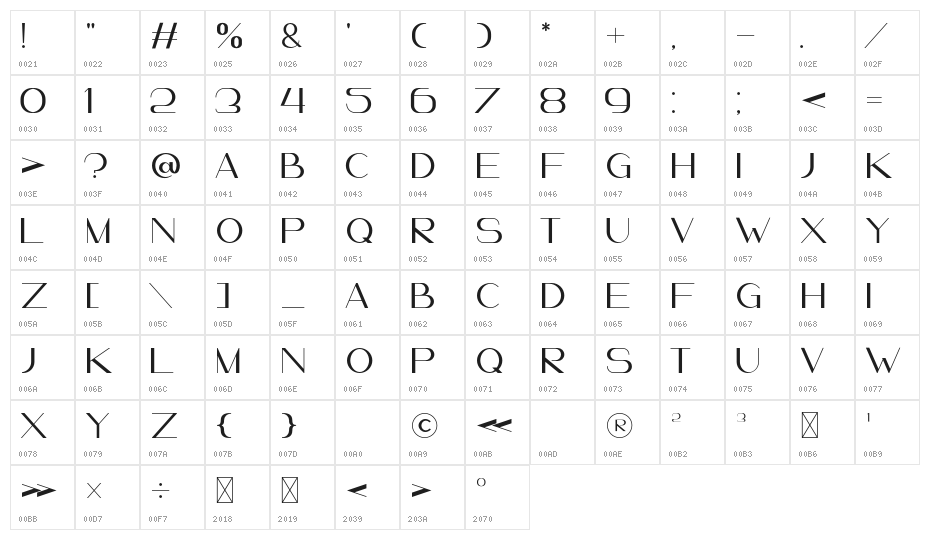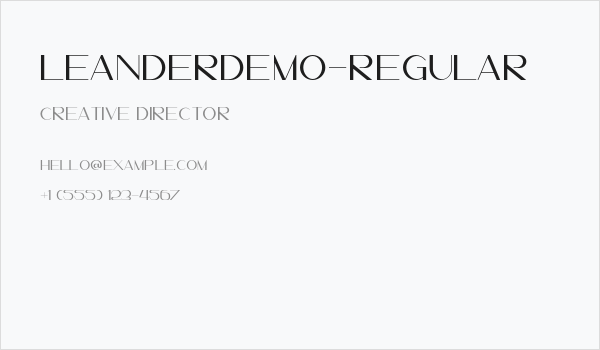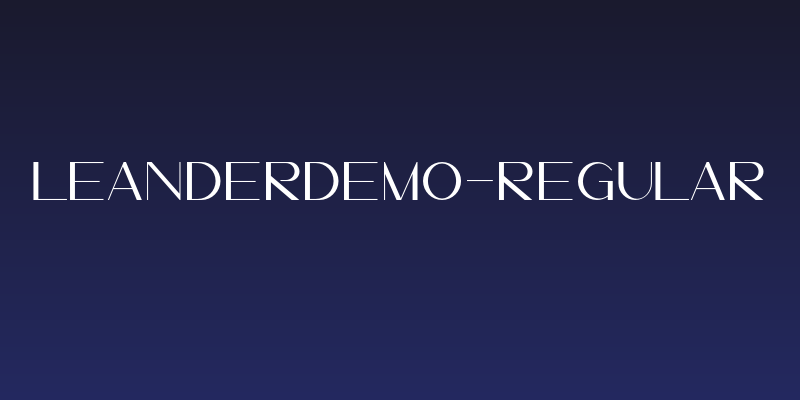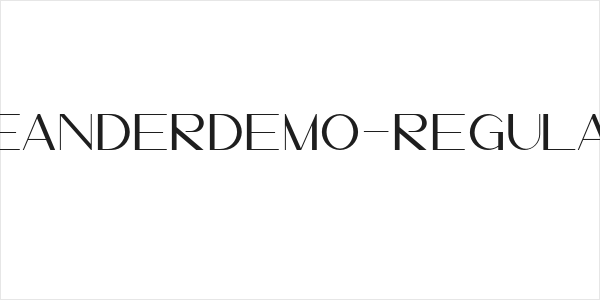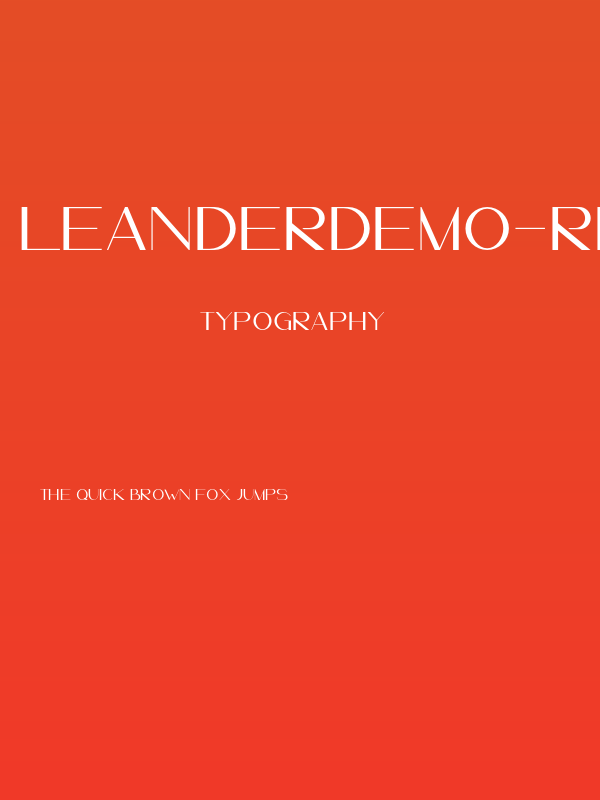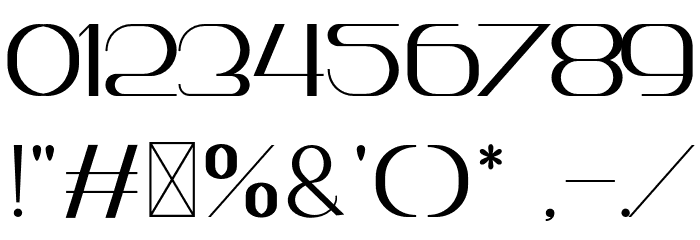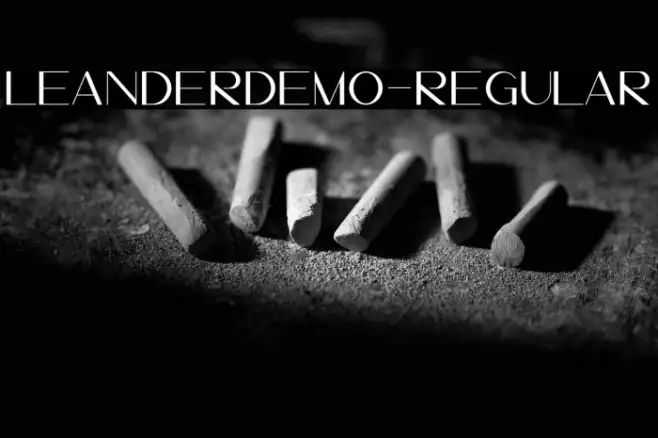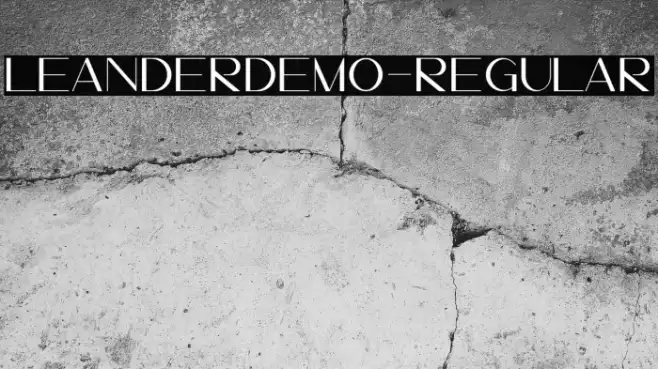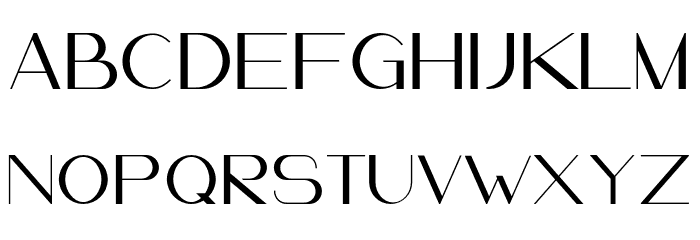
LeanderDemo-Regular Font
LeanderDemo-Regular Description
This font exhibits a modern and sleek design with a geometric influence. The characters are crafted with a blend of sharp angles and smooth curves, creating a dynamic and stylish appearance. The uppercase letters are particularly striking, with unique cuts and lines that add a sense of movement and sophistication. The lowercase letters maintain a consistent style, complementing the uppercase with a more subtle flair. Numbers are designed with a similar aesthetic, ensuring uniformity across all characters. Special characters are included, matching the overall design ethos. This font is ideal for projects that require a contemporary and elegant touch.
| Use Case | Headlines, Logos, Editorial Design |
| Proposed Projects | Ideal for branding, editorial design, advertising, and digital media projects. |